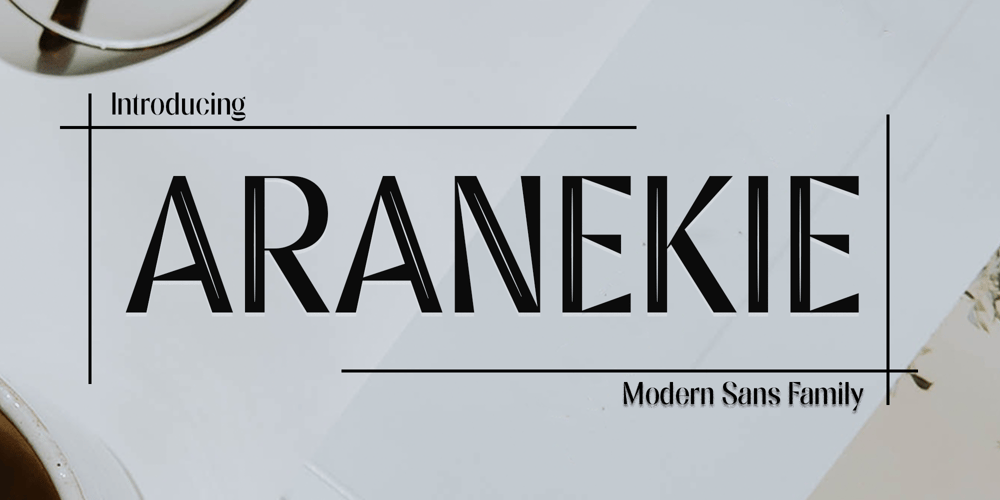
Aranekie
Aranekie font
Aranekie Font Family was designed by Sidik Sidik and published by Differentialtype. Aranekie contains 4 styles and family package options. Aranekie is a modern sans serif font inspired by the bold and thin serif fonts. Aranekie comes in 4 styles, regular and italic styles that are perfect for documents, and Aranekie Dxy which can be used for display fonts such as logos, pamphlets, book covers and many other projects.